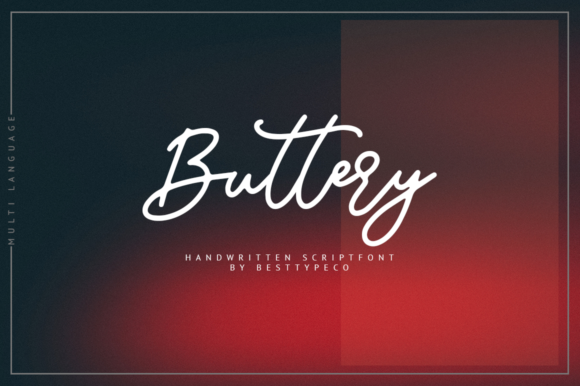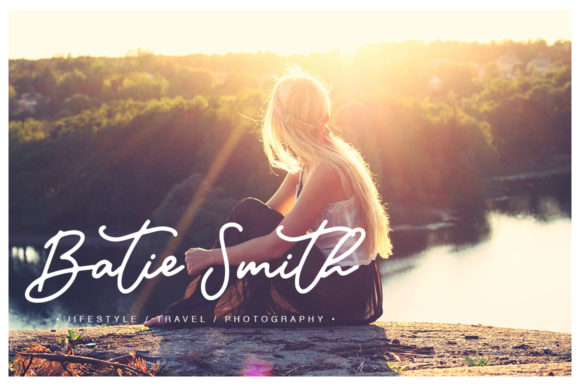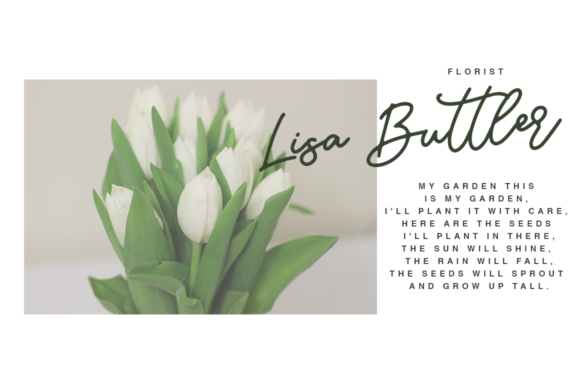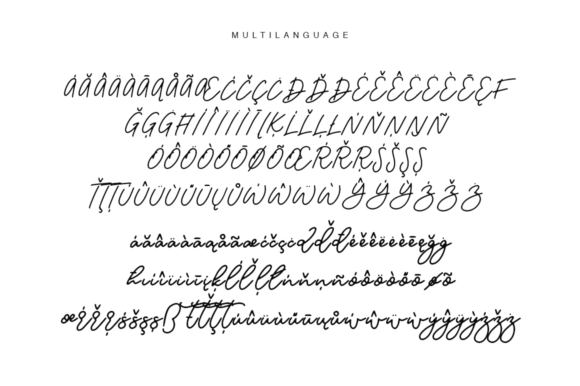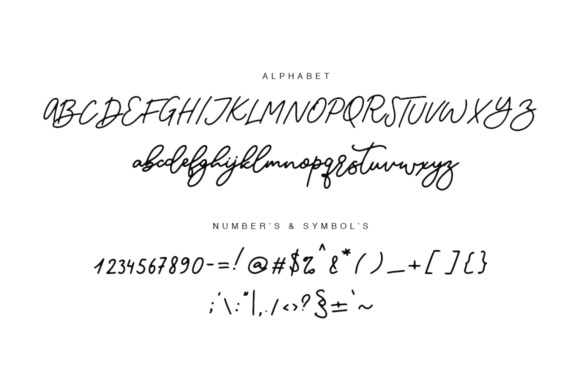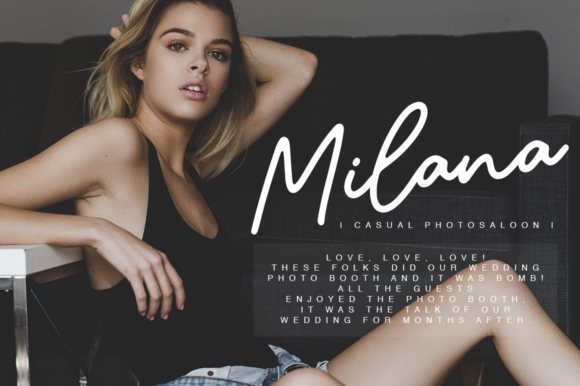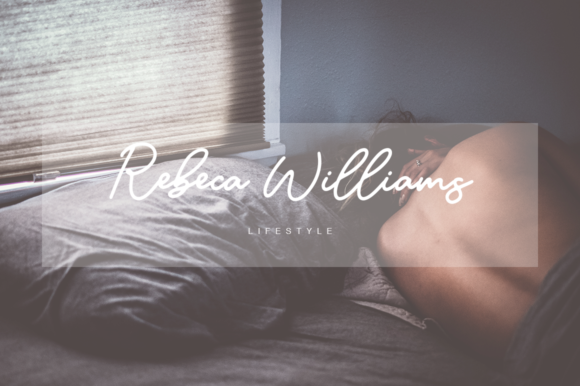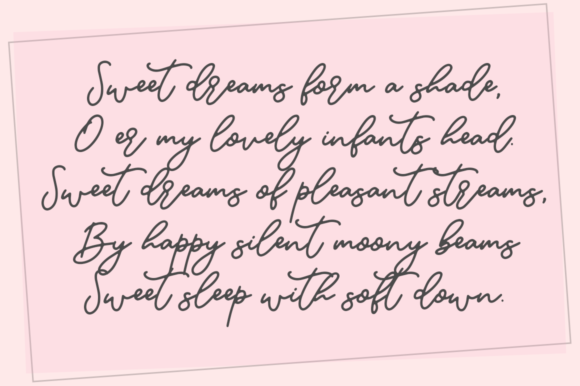
Buttery Font
About Buttery Font
Buttery is a new, fresh, handmade calligraphy font.
Very suitable for greeting cards, branding materials, business cards, quotes, posters, and more!